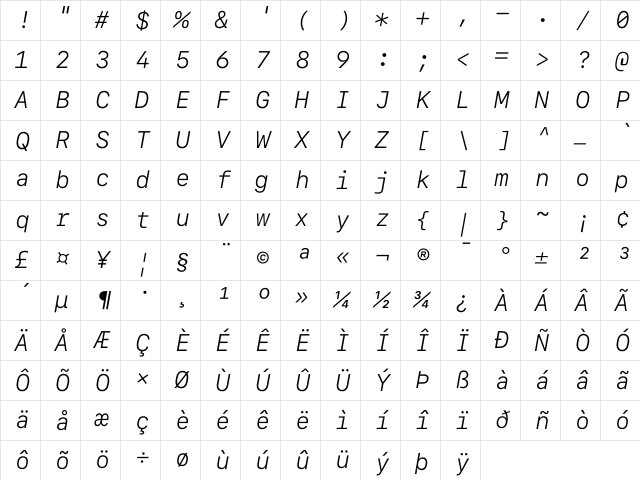
Complete SF Mono Light Italic glyph index. Displaying only characters natively supported by SF Mono Light Italic font.
SF Mono uses fixed-width spacing throughout, giving it the structured, systematic character associated with coding environments and technical documentation. The slanted form adds forward momentum and visual energy. Its slender proportions lend an understated elegance to any composition.